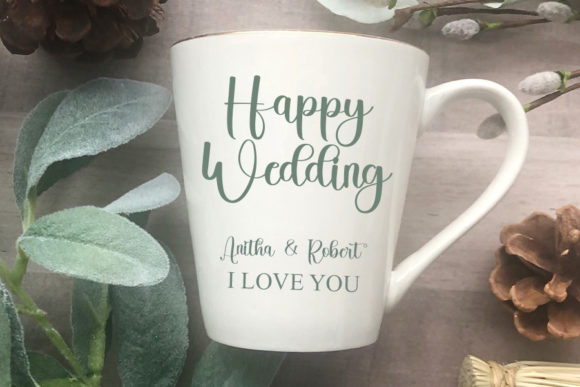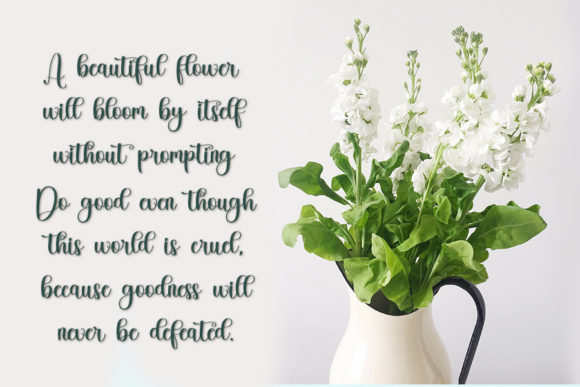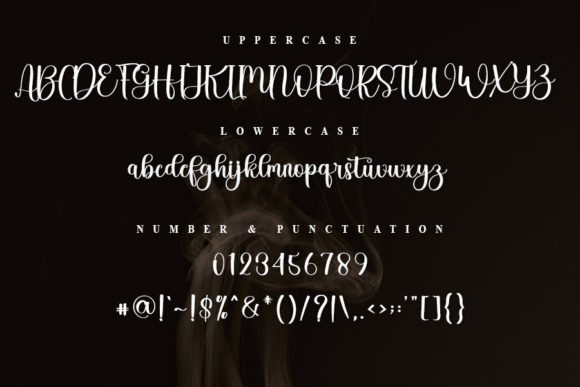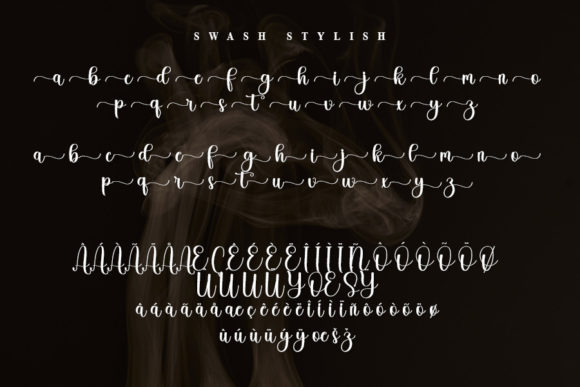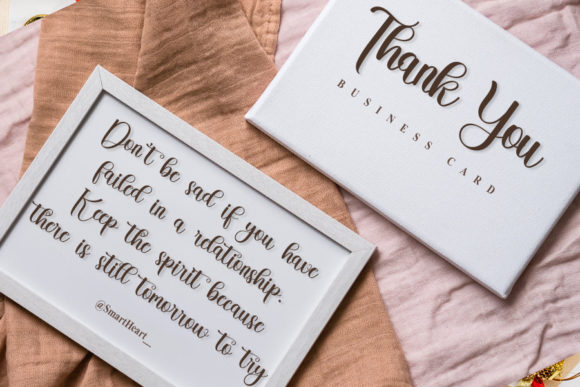
Chemistry Font: Elevate Your Designs with a Stylish and Bold Handwritten Font
Are you looking for a font that can add a touch of sophistication and elegance to your designs? Look no further than the Chemistry Font. This gorgeous and bold handwritten font is crafted to give your headlines and logotype projects a stylish touch that’s sure to capture attention. With its strong, confident, and dynamic feel, Chemistry Font is the perfect choice for designers and crafters who want to take their work to the next level.
What Makes Chemistry Font So Special?
Chemistry Font is more than just a font – it’s a design statement. With its bold and handwritten style, it reads as strong, confident, and dynamic, making it perfect for headlines, logotypes, and other high-impact design projects. But what really sets Chemistry Font apart is its nostalgic character. This font has a timeless quality that will add a touch of warmth and personality to your designs, making them stand out in a crowded marketplace.
PUA Encoding for Easy Access to Glyphs and Ligatures
One of the best things about Chemistry Font is that it’s PUA (Private Use Area) encoded. This means that you can access all of the amazing glyphs and ligatures with ease, giving you even more creative possibilities. With PUA encoding, you can easily insert special characters, swashes, and other design elements that will take your work to the next level. Whether you’re a seasoned designer or just starting out, Chemistry Font’s PUA encoding makes it easy to get the look you want.
Chemistry Font is a versatile font that’s perfect for a wide range of design projects. Whether you’re working on a logo, brochure, or social media graphics, this font will add a touch of sophistication and elegance to your work. And with its bold and handwritten style, it’s especially well-suited for designs that need to make a statement. Whether you’re a designer, crafter, or DIY enthusiast, Chemistry Font is a great choice for anyone who wants to add a little extra something to their work.
Key Features of Chemistry Font
• Bold and handwritten style: Chemistry Font has a strong, confident, and dynamic feel that’s perfect for headlines and logotypes.
• Nostalgic character: This font has a timeless quality that will add a touch of warmth and personality to your designs.
• PUA encoded: Easily access all of the amazing glyphs and ligatures to take your designs to the next level.
• Versatile: Perfect for a wide range of design projects, from logos and brochures to social media graphics and more.
• Use it for headlines and logotypes: Chemistry Font is perfect for high-impact designs that need to make a statement.
• Experiment with glyphs and ligatures: With PUA encoding, you can easily access a wide range of special characters and design elements.